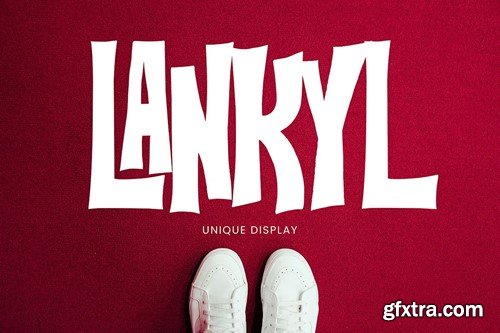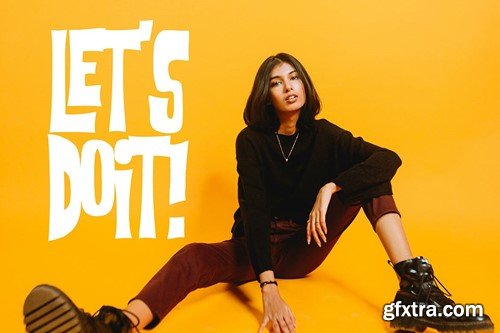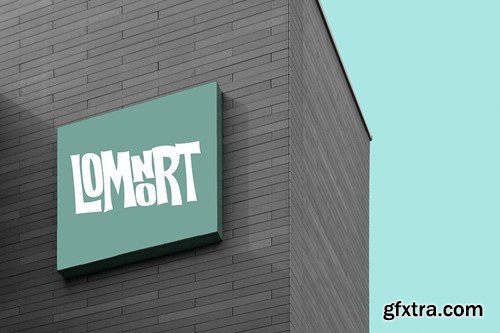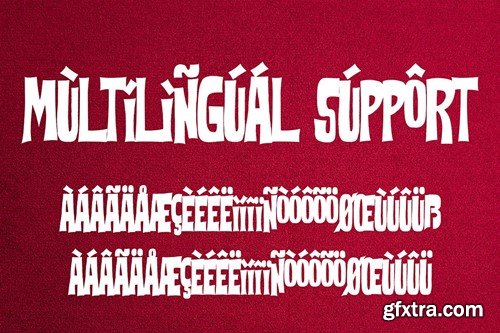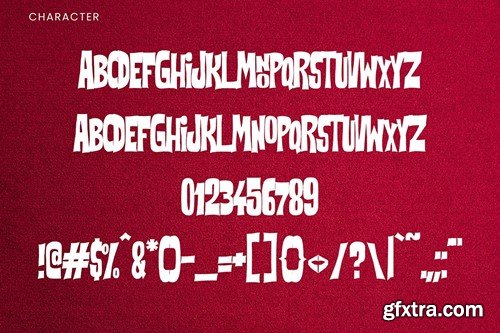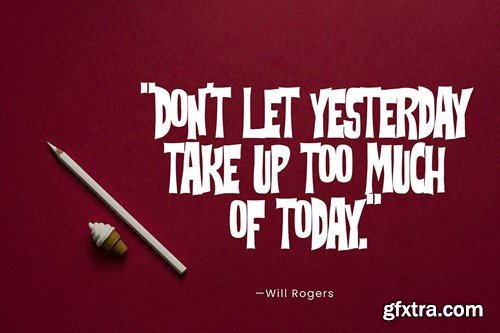
Lankyl - Unique Display Font SL4N3PY
Lankyl - Unique Display Font
Introducing Lankyl, a simple and unique display font. So perfect for you who needs a typeface for logo designs, magazine, social media, brochure, and many more.